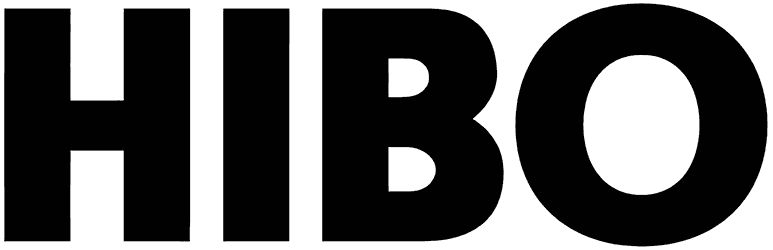
Hibo Font
Sometimes what your project needs is a modest and bold letterform that can convey a modern and confident vibe to your viewers. This sans-serif font has a minimal style that can easily match any topic. Hibo font doesn’t cover lowercase letters, yet it will be a cool selection for a company logo, an industrial advertising citylight, or so forth.